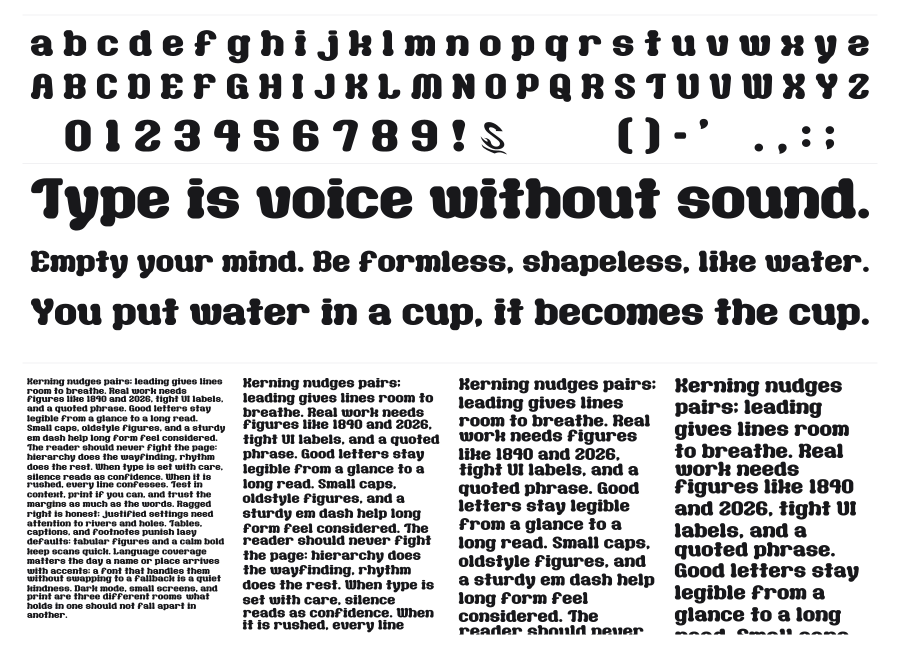
Milk Chocolate G
Milk Chocolate G is a chunky, rounded slab serif from Goma Shin with heavy black-weight letterforms that feel soft and approachable despite their size. The rounded terminals and generous proportions give it a playful, almost toylike personality, making it a natural pick for headlines, packaging, and children's branding where you want something bold but friendly.